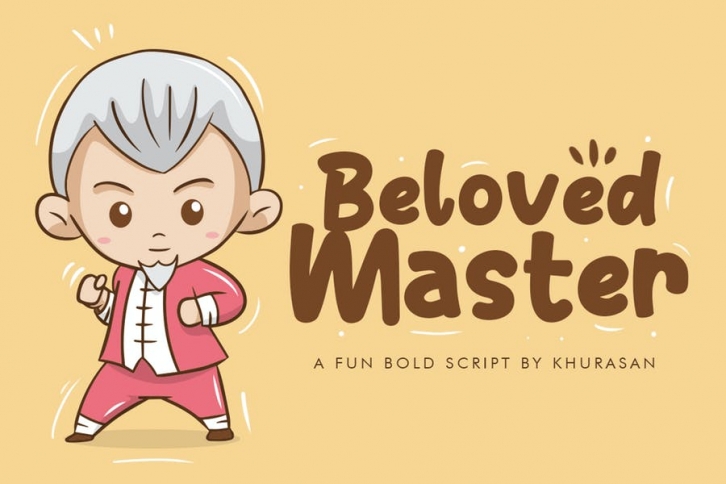
The Beloved Master is a fun bold display font, fresh & modern style. Beloved Master Font suitable for logo, branding, greeting card, poster and any design that you create.
Khurasan